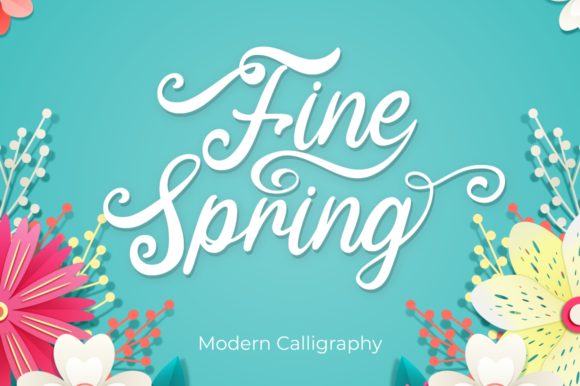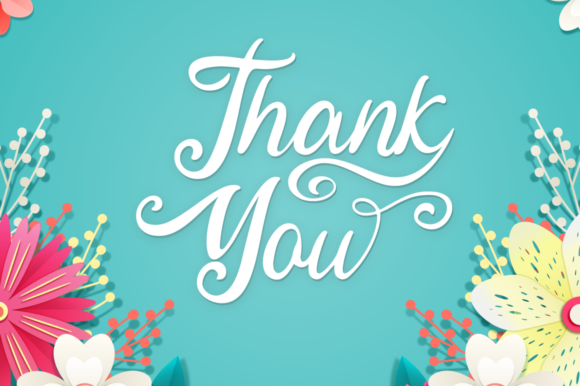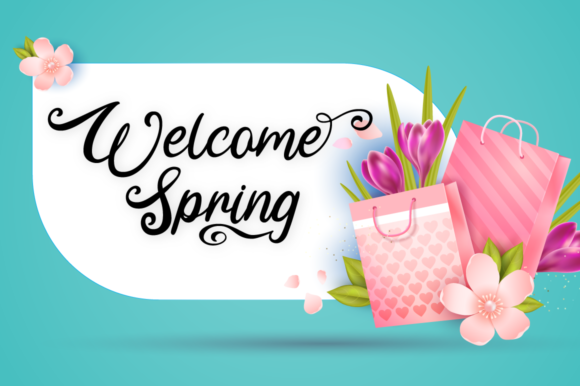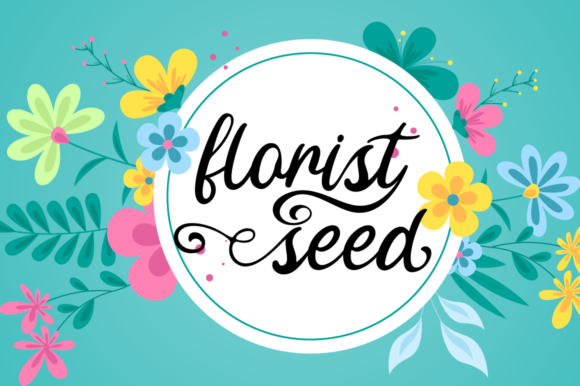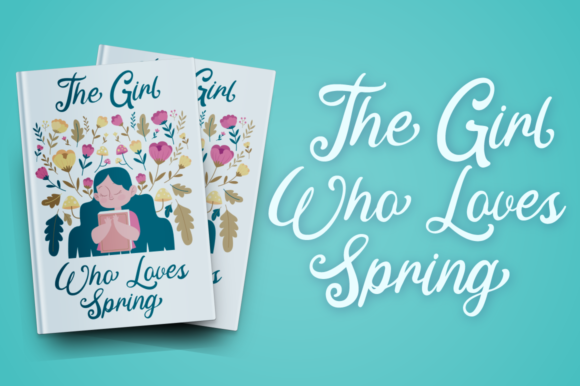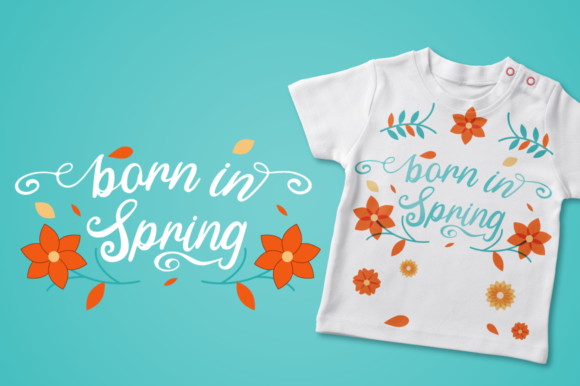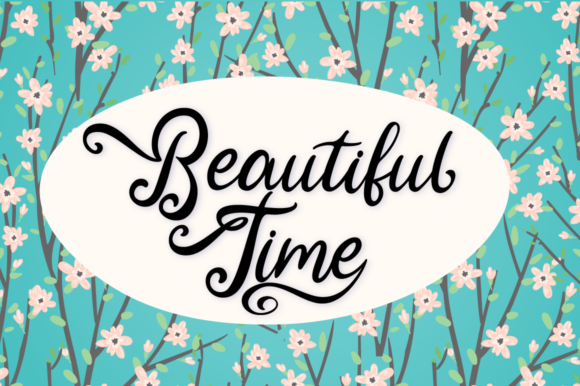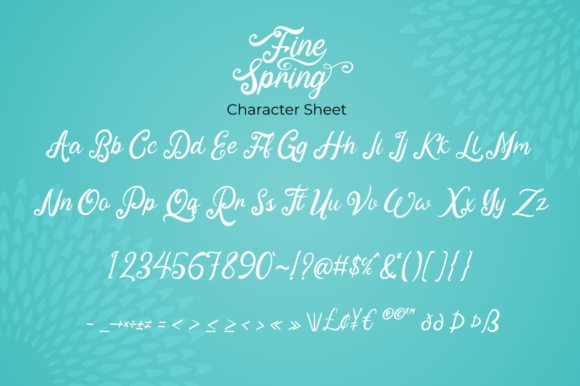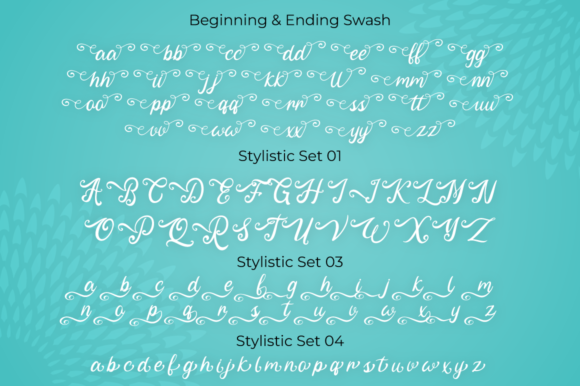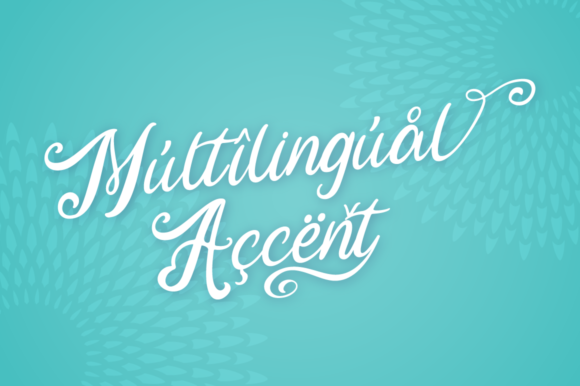
Fine Spring Font
About Fine Spring Font
Fine Spring is a lovely handwritten font inspired by the spring season. Whether you’re looking for fonts for Instagram or calligraphy scripts for DIY projects, this font will turn any creative idea into a true piece of art!